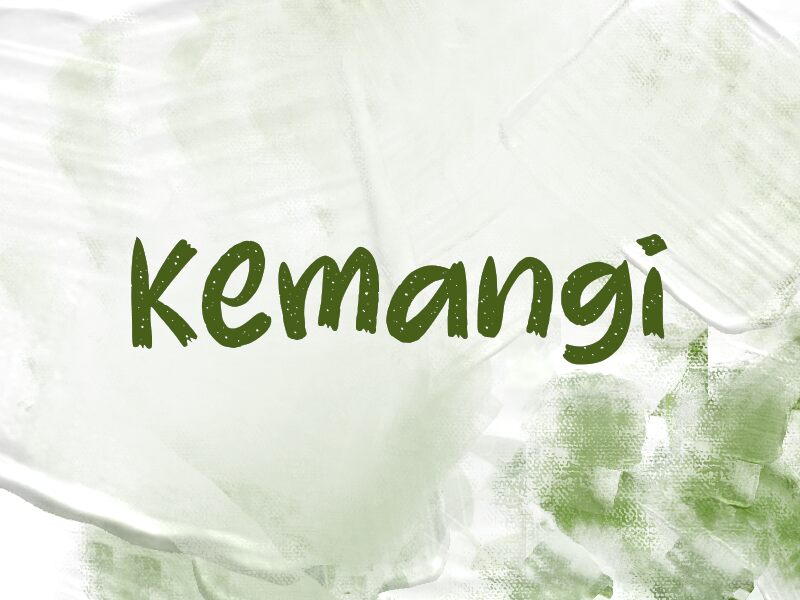
K Kemangi font exudes an informal and casual brushwork style with a hand-drawn aesthetic. This free font is lively and vibrant, and at its core, friendly and warm in appearance. The font’s friendly, welcoming nature is so effective because of its casual style that is full of character. The textured effect gives it a very organic structure, allowing it to appear as realistic as it does. It comes with a variety of glyphs and alternate typographic characters that allow it to look even more realistic.
K Kemangi is suitable for a variety of design purposes and multiple fields, whether it’s in business or for recreational purposes. The font is especially designed for use in posters, headlines, logo design, digital art, blogs, ads, quotes, invitations, book covers, photography, games, mobile applications, or websites.
Kemangi is a stylish and versatile free font that blends elegance with modern design. This typeface is perfect for various applications, from branding and advertising to invitations and showcases. Its unique letterforms add character to any project, making it an excellent choice for designers looking to make a statement.
With a focus on legibility and aesthetic appeal, Kemangi is suitable for both print and digital media. Download this free font today and elevate your creative work with its distinctive charm.